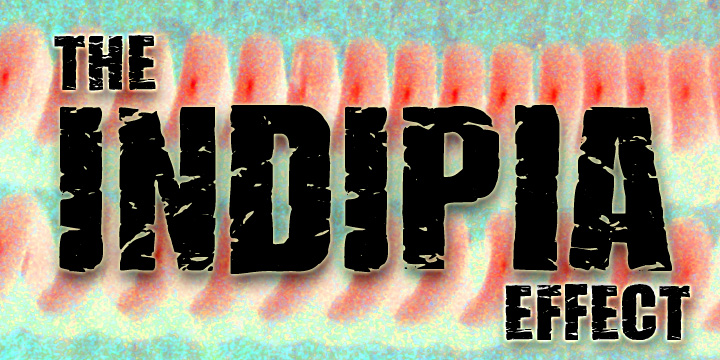
Indipia is a caps-only misprinted font, ideal for display, titles, and headlines. It has alternative characters for all double-letter combinations aa-zz and AA-ZZ to avoid having two identical degraded letters together (You can see this by typing/copying words like mirror BASSOONS into the text box above, with Ligatures on); different characters for upper/lower case letters; and of course all the expected accented characters for European languages. There’s also Stylistic Alternates for some common letters and punctuation which will give a third version of the letter and/or add some random ink-misprints if selected. There are 2 styles -- Regular has small areas misprinted within the letter itself like little bits that haven't been inked, the Solid version doesn't, and the Solid one is on the grey gallery poster image. More…